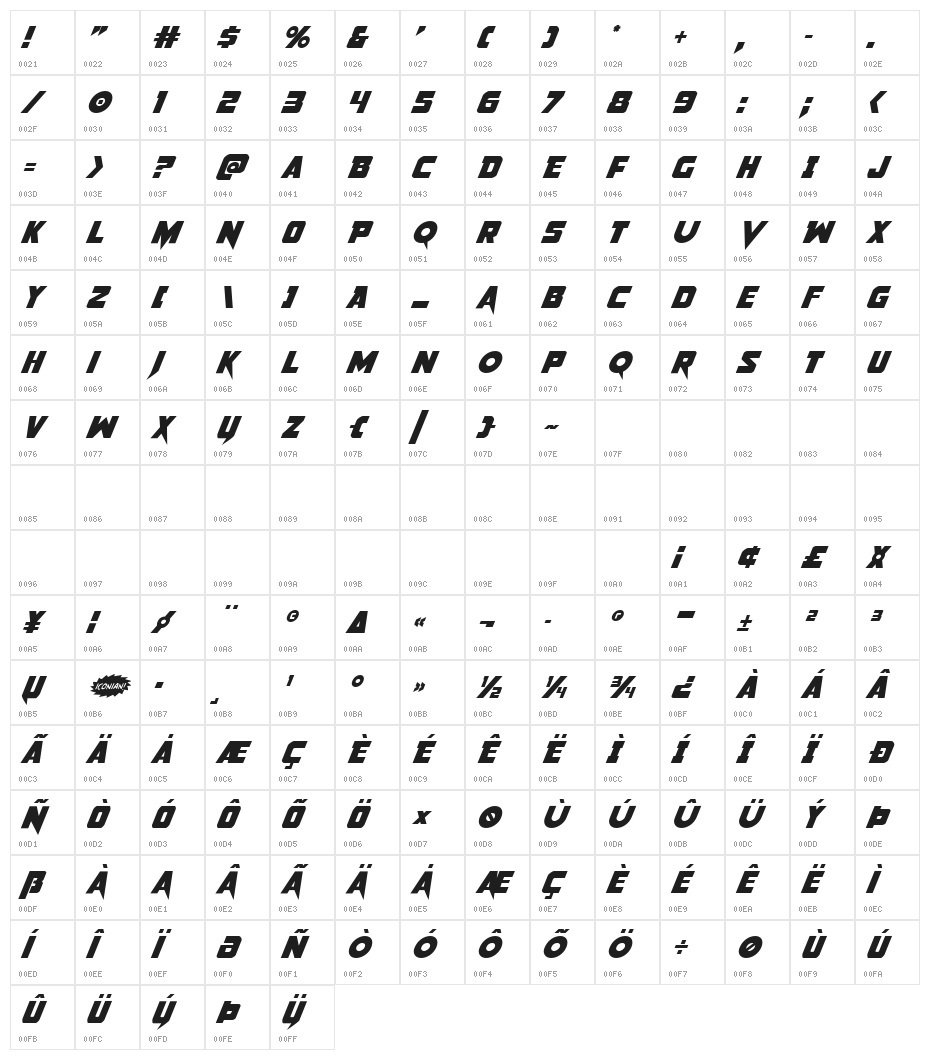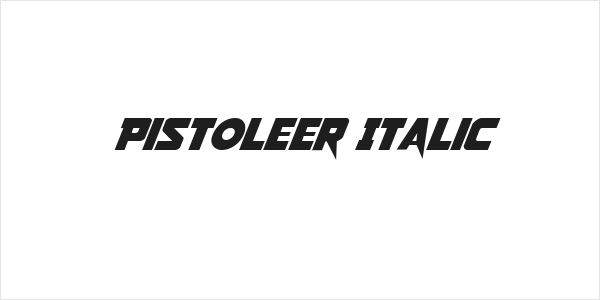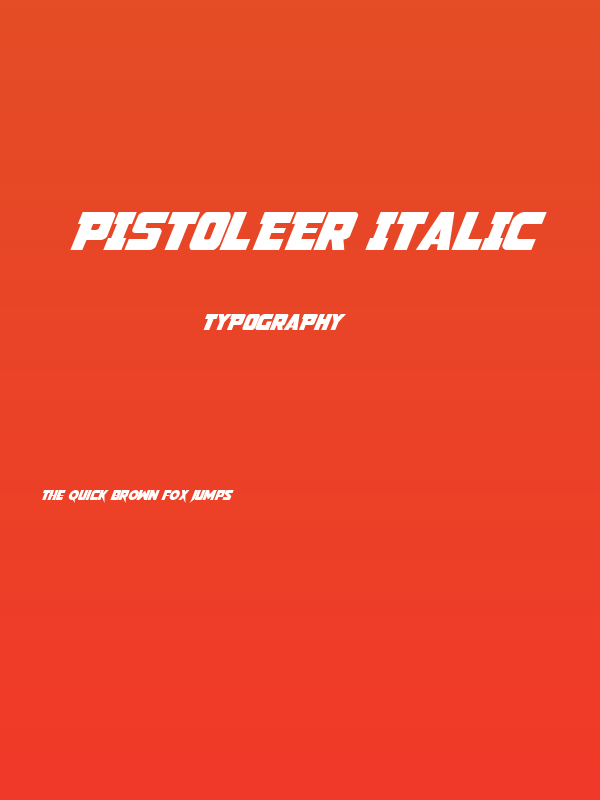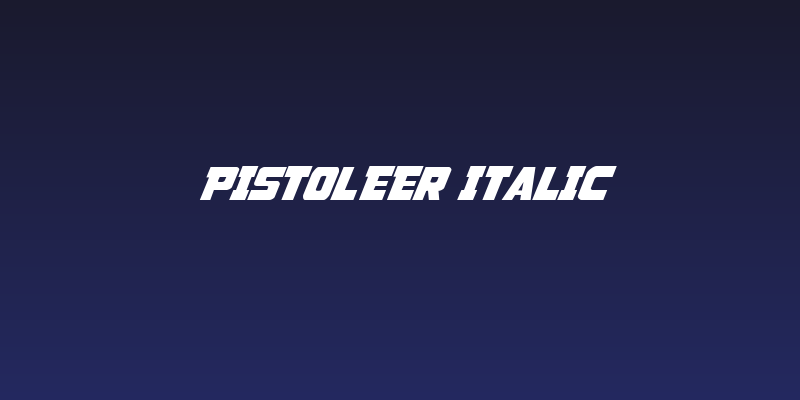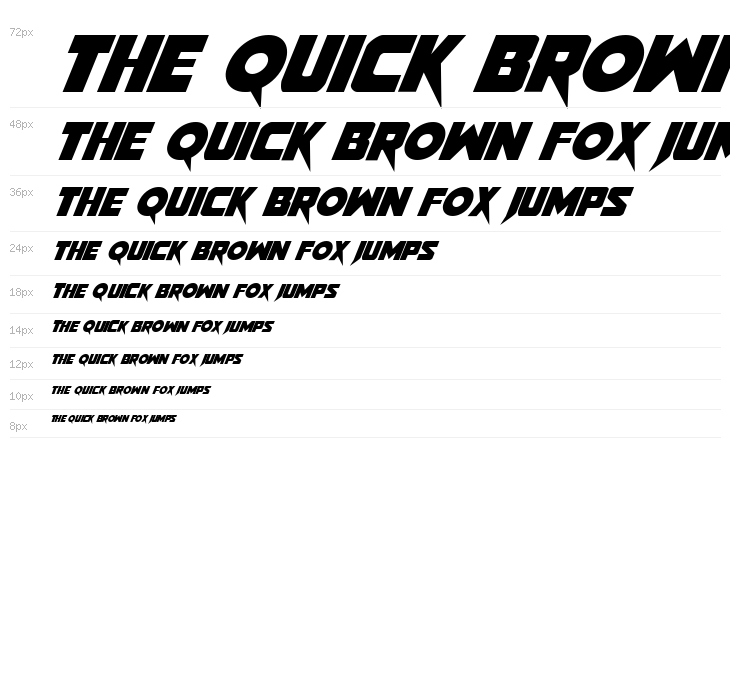
Pistoleer Italic Font
Pistoleer Italic Description
This dynamic and bold typeface features sharp, angular lines and a distinct italic slant, giving it a sense of motion and energy. The characters are tightly spaced, enhancing its compact and impactful appearance. The font's design incorporates unique, pointed serifs and edges that add a modern, aggressive flair. The uppercase and lowercase letters maintain a consistent style, while the numerals and special characters complement the overall aesthetic with their bold and striking forms. This font is ideal for projects that require a strong visual impact and a contemporary, edgy look.